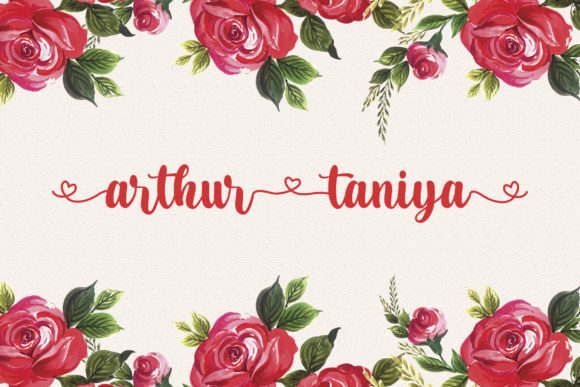
Introducing Arthur Taniya Font: The Epitome of Elegance and Sophistication
In the realm of typography, few fonts have managed to capture the essence of elegance and sophistication as effectively as Arthur Taniya. This exquisite script font has been meticulously crafted to transport your designs to the pinnacle of refinement, making it an indispensable asset for creatives and designers alike. With its beautiful heart swashes and masterful blend of classic calligraphic influences and modern flair, Arthur Taniya is poised to become your new favorite font.
Key Features of Arthur Taniya Font
- Exquisite Script Design: Arthur Taniya boasts a stunning script design that exudes elegance and poise. Its fluid strokes and intricate details make it perfect for a wide range of design applications, from luxury branding to wedding invitations.
- Beautiful Heart Swashes: One of the standout features of Arthur Taniya is its beautiful heart swashes. These delicate flourishes add a touch of romance and whimsy to your designs, making them truly unforgettable.
- Classy Calligraphic Influences: The font’s design is deeply rooted in traditional calligraphy, giving it a timeless and sophisticated feel. However, it also incorporates contemporary elements, making it feel fresh and modern.
Ideal Design Applications for Arthur Taniya
Arthur Taniya’s versatility makes it suitable for a wide range of design applications. Here are a few ideas to get you started:
- Luxury Branding: Create a lasting impression with your brand identity by using Arthur Taniya for your logos, business cards, and letterheads.
- Wedding Invitations: Add a touch of romance and elegance to your wedding invitations, save-the-date cards, and other wedding-related materials.
- Packaging Design: Elevate your product packaging with Arthur Taniya’s sophisticated and refined aesthetic.
- Advertising and Marketing: Use Arthur Taniya to create eye-catching advertisements, brochures, and marketing materials that exude luxury and sophistication.
Typography Tips for Using Arthur Taniya
To get the most out of Arthur Taniya, here are some typography tips to keep in mind:
- Pair it with Neutral Fonts: Combine Arthur Taniya with neutral fonts to create a striking contrast and make your designs pop.
- Experiment with Font Sizes: Play around with different font sizes to create visual hierarchy and add depth to your designs.
- Use Swashes Wisely: Use Arthur Taniya’s beautiful heart swashes judiciously to add a touch of elegance and whimsy to your designs.
The Benefits of Using Arthur Taniya Font
So, why should you choose Arthur Taniya for your design projects? Here are some benefits that set it apart:
- Elegance and Sophistication: Arthur Taniya brings a level of elegance and sophistication to your designs that’s hard to match.
- Versatility: The font’s versatility makes it suitable for a wide range of design applications.
- Unique and Memorable: Arthur Taniya’s distinctive design ensures that your projects will stand out from the crowd and leave a lasting impression.
In conclusion, Arthur Taniya is a truly exceptional script font that offers a perfect blend of elegance, sophistication, and versatility. With its beautiful heart swashes, PUA encoding, and classy calligraphic influences, it’s an indispensable asset for any designer or creative looking to elevate their projects to new heights. So why wait? Fall in love with Arthur Taniya and experience the transformative power of exquisite typography.